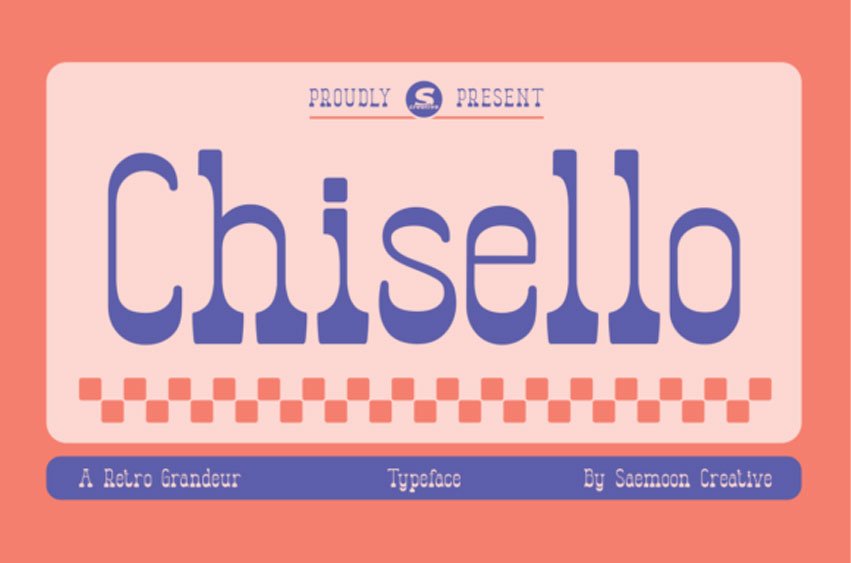
Chisello Font
Chisello Font is a high-quality, vintage-styled serif font that embodies an intense passion and commitment to the magnificent world of typography. Chisello showcases audacious, captivating serifs alongside a refined body shape and evenly balanced curves that emanate classiness.
Merging the alluring appeal of classic design with a hint of modern elegance, Chisello creates a high-end, professional mood for your projects. Ideal for branding or poster designs, eye-catching editorials, or any inventive endeavor that aims to captivate and leave a lasting impact. Allow Chisello to be the must-have ingredient that propels your creative expression into reality, engraved with a memorable touch of glamour.